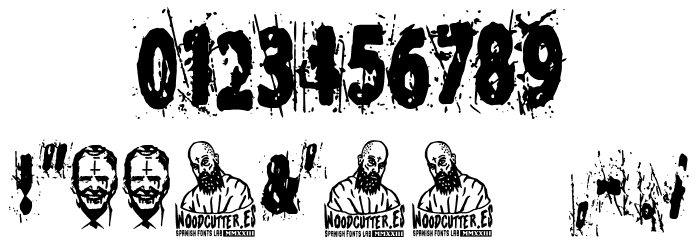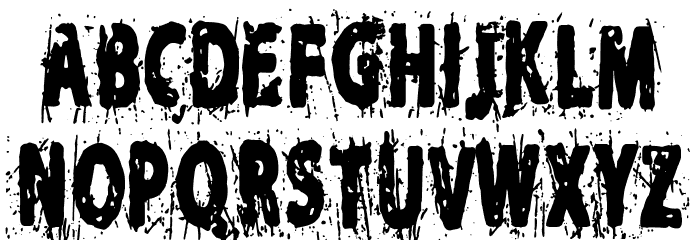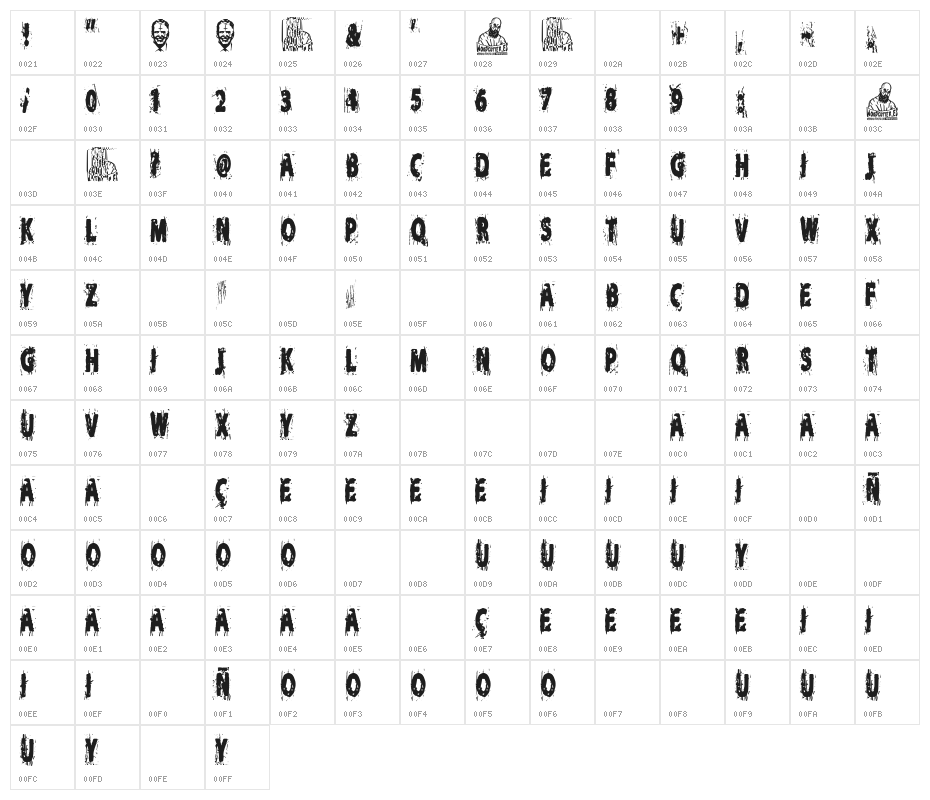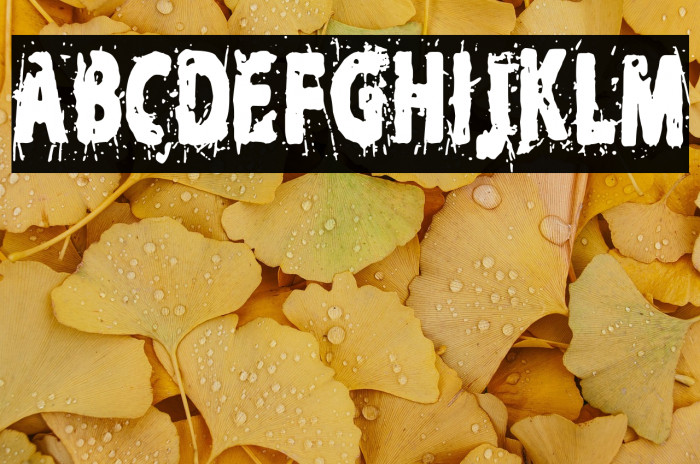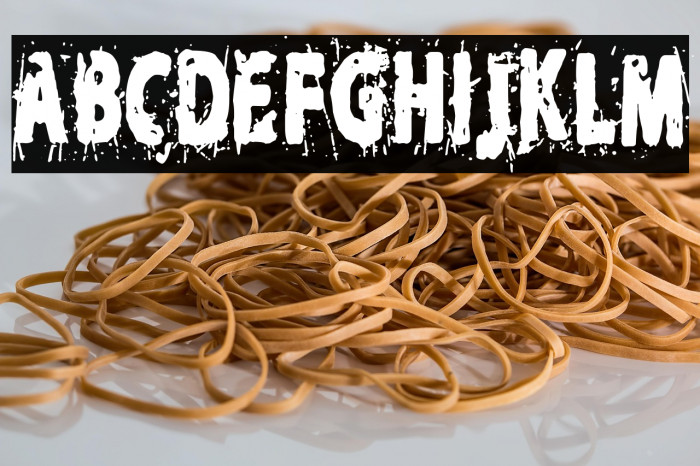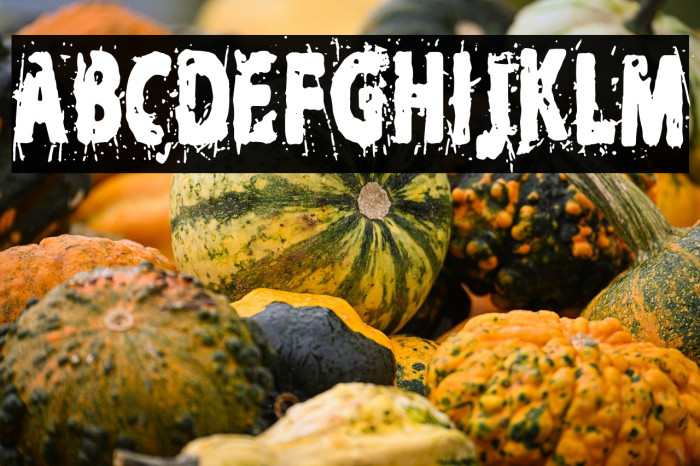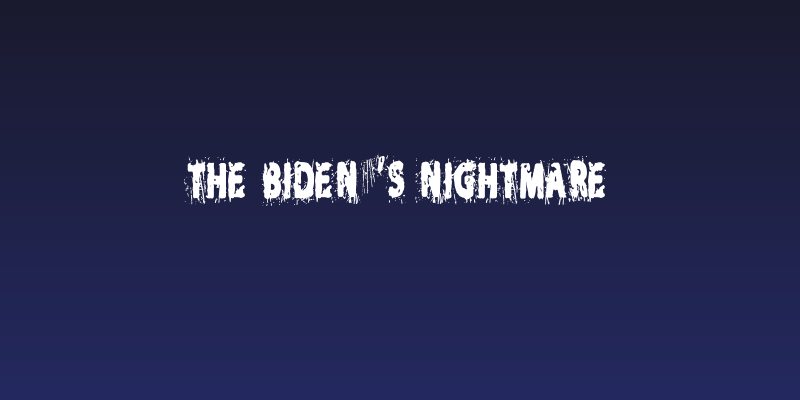
The Biden's Nightmare Font
The Biden's Nightmare Description
This font features a distressed, grunge style with a splattered, worn appearance. Each character appears as if it has been roughly painted or stamped, giving it a chaotic and edgy look. The uppercase and lowercase letters maintain a consistent style, with irregular edges and a bold presence. Numbers and special characters follow the same aesthetic, ensuring a cohesive look across all text. The font's unique texture makes it stand out, ideal for projects that require a raw, rebellious feel.
| Overall Style | Grunge, Edgy |
| Proposed Projects | Ideal for music album covers, horror movie posters, edgy branding, or any project needing a raw, rebellious aesthetic. |